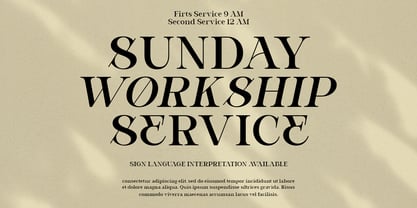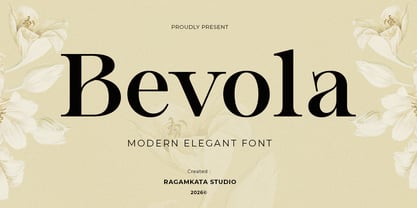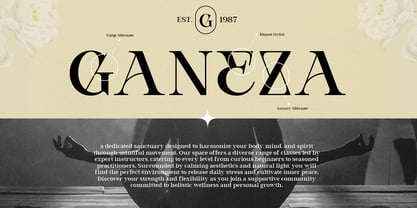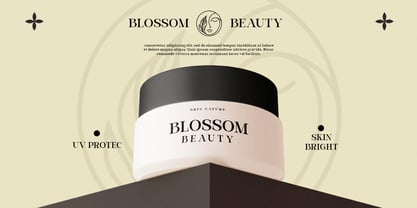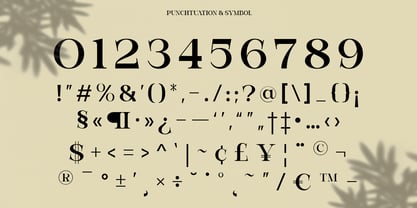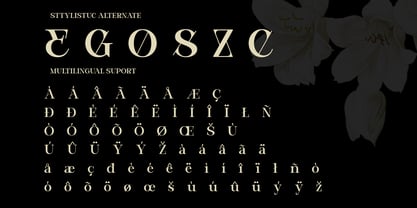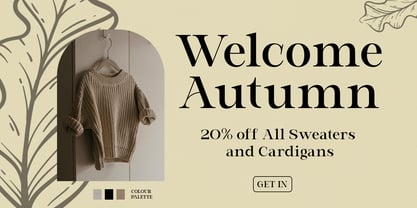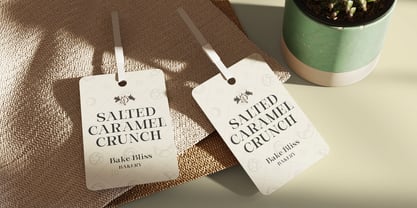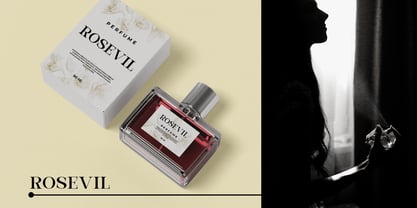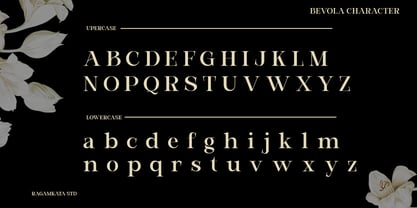
Bevola
Bevola is a modern, elegant serif font crafted to infuse timeless beauty and refined sophistication into contemporary design. Featuring graceful curves, balanced proportions, and stylish contrast, Bevola provides a luxurious typographic presence that harmoniously combines classic and modern elements. The delicate serif details contribute to a premium aesthetic, making it ideal for both digital and print applications. Designed for creatives who desire typography that stands out with elegance, Bevola excels in branding projects, fashion editorials, luxury packaging, magazine layouts, beauty products, and sophisticated logo design. Its refined character shapes ensure excellent readability while maintaining a chic, high-end appearance that enhances any creative endeavor. Whether you are developing a luxury brand identity, designing a modern editorial layout, or crafting elegant invitations and packaging, Bevola delivers versatility and elegance in every letter. This font seamlessly merges contemporary design with timeless serif sophistication, making it an exceptional choice for designers in search of premium typography with a refined visual voice.